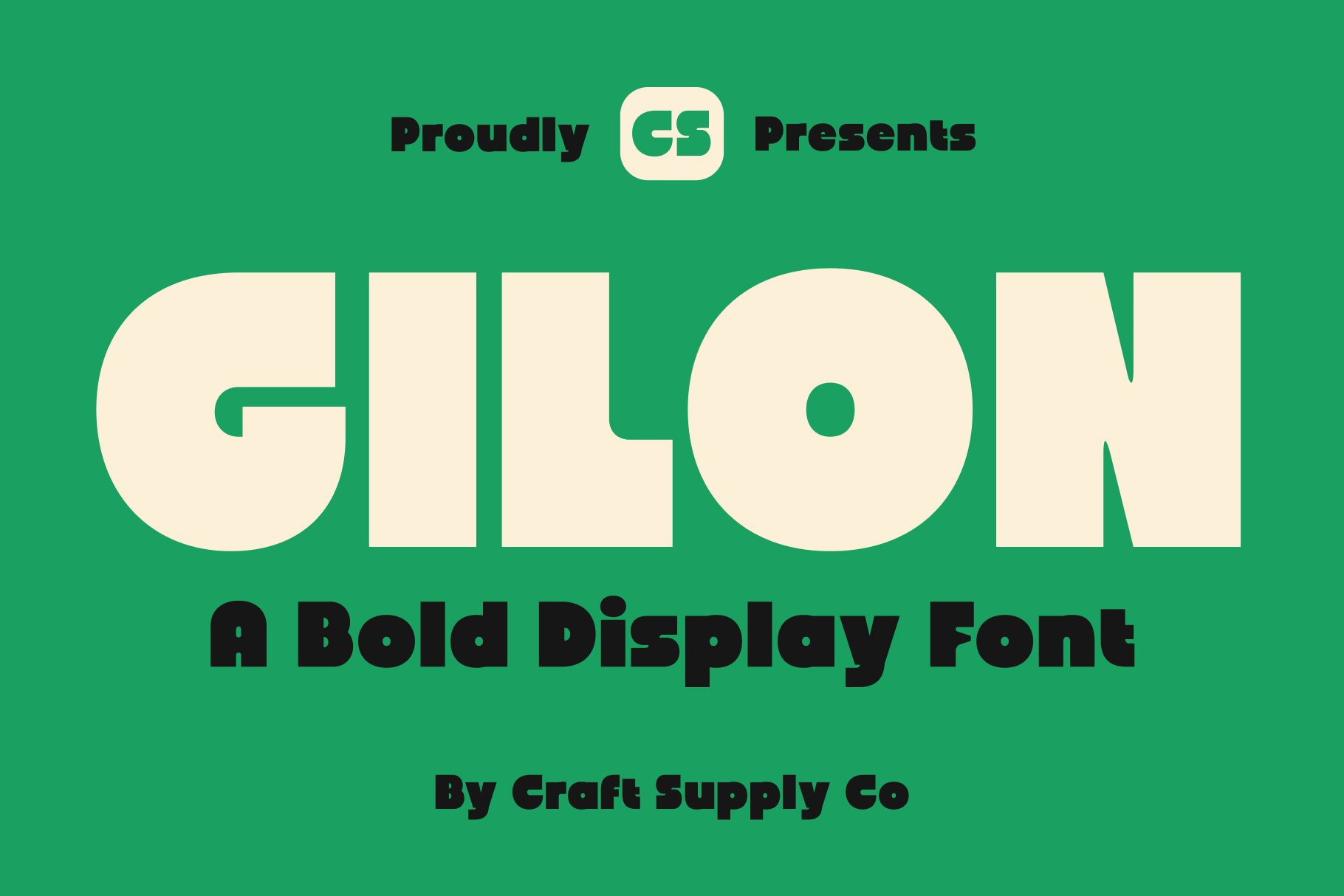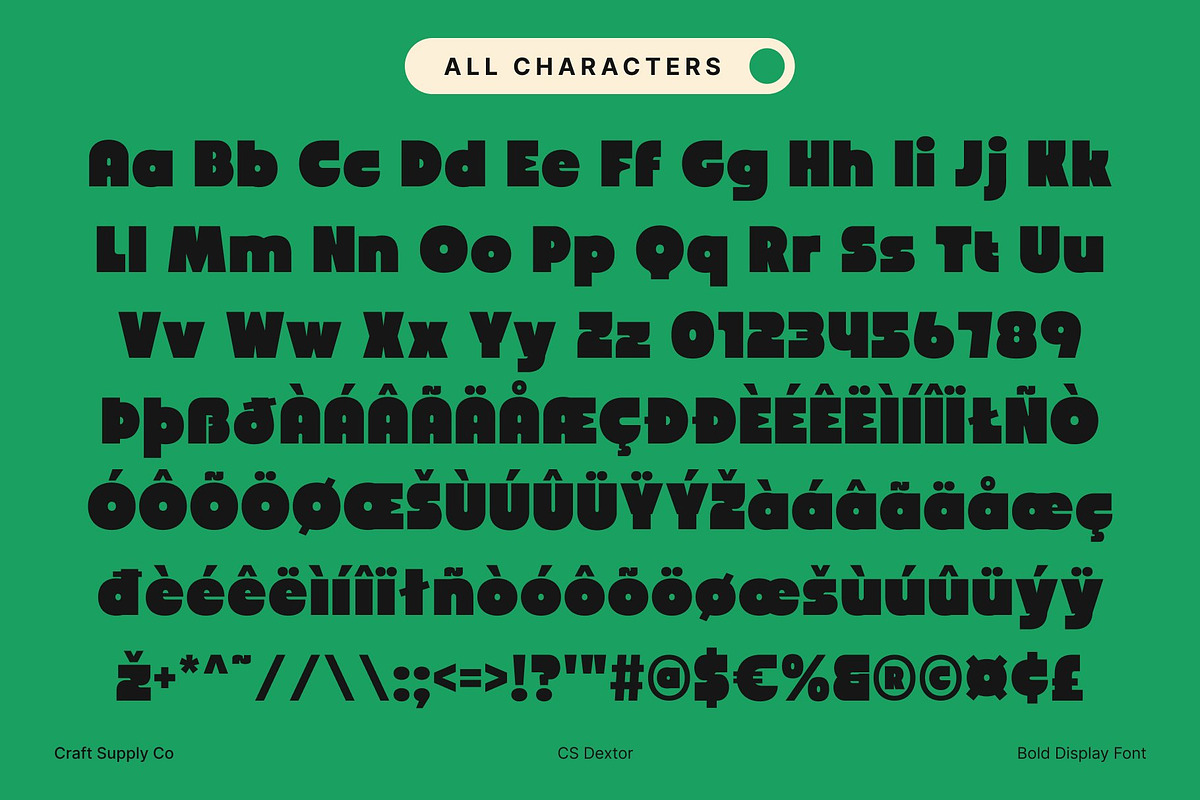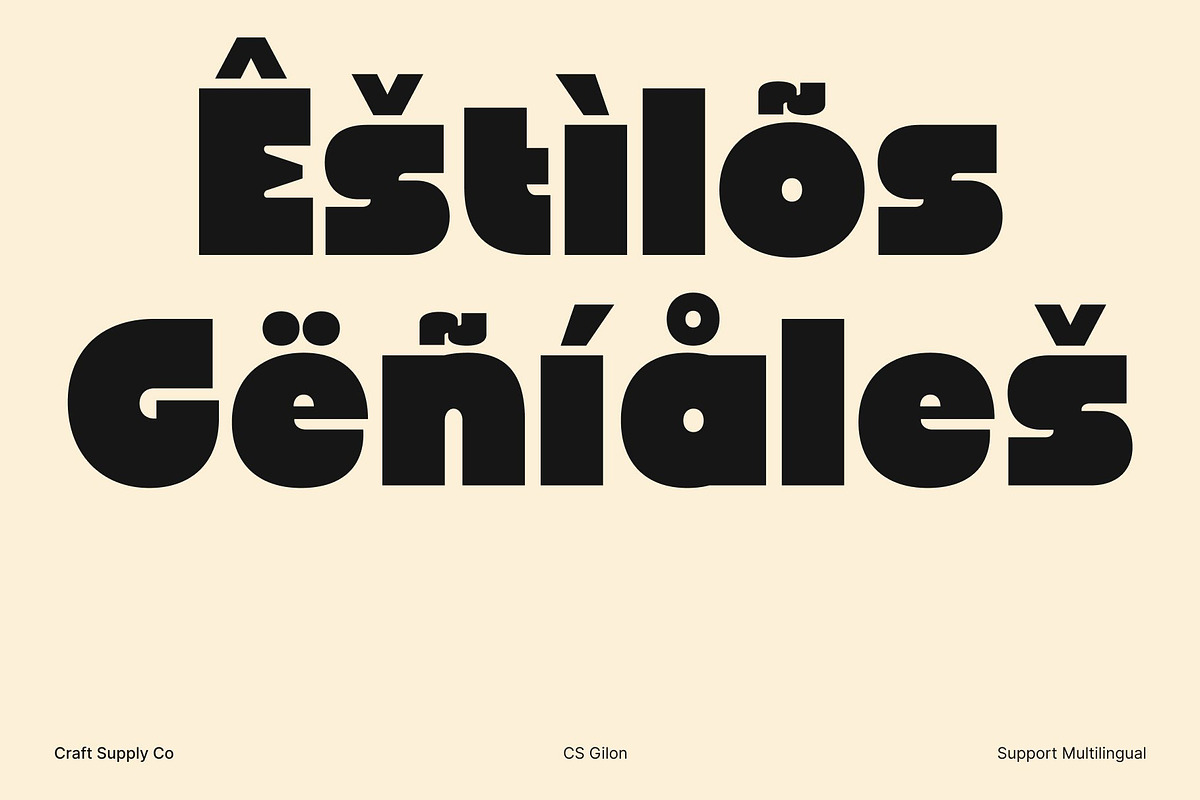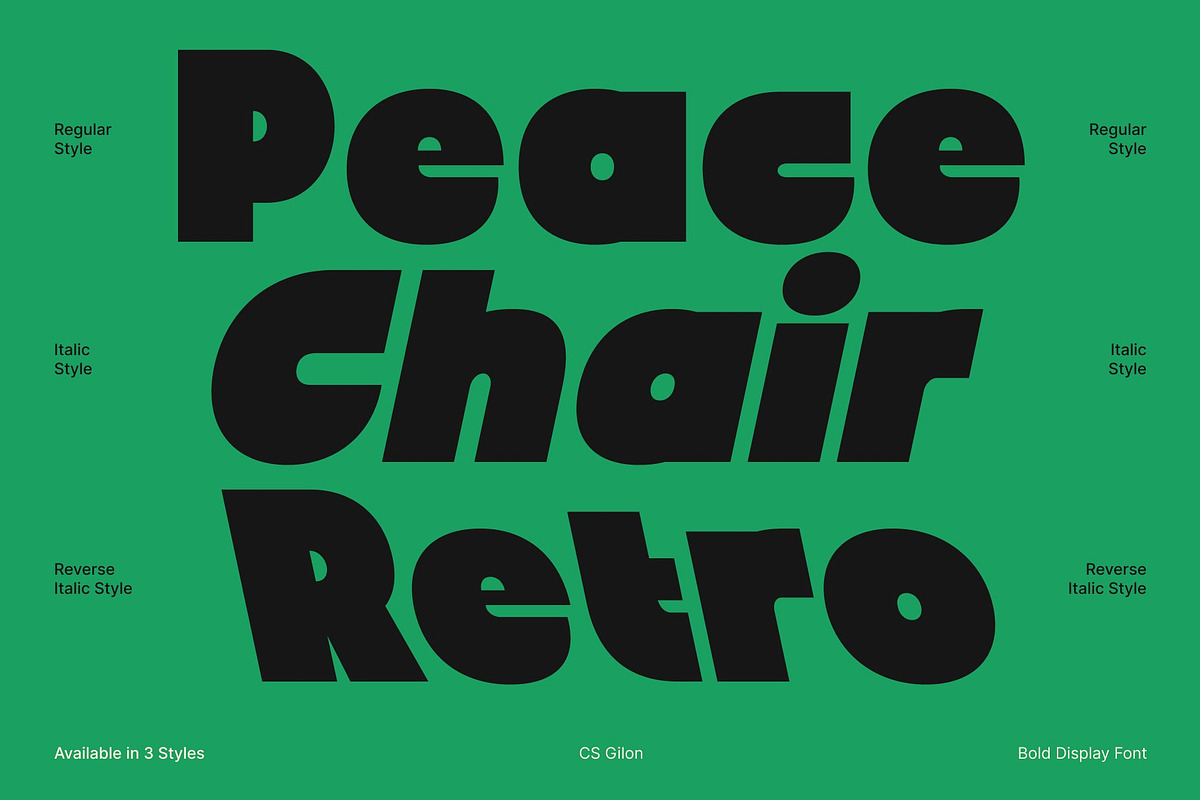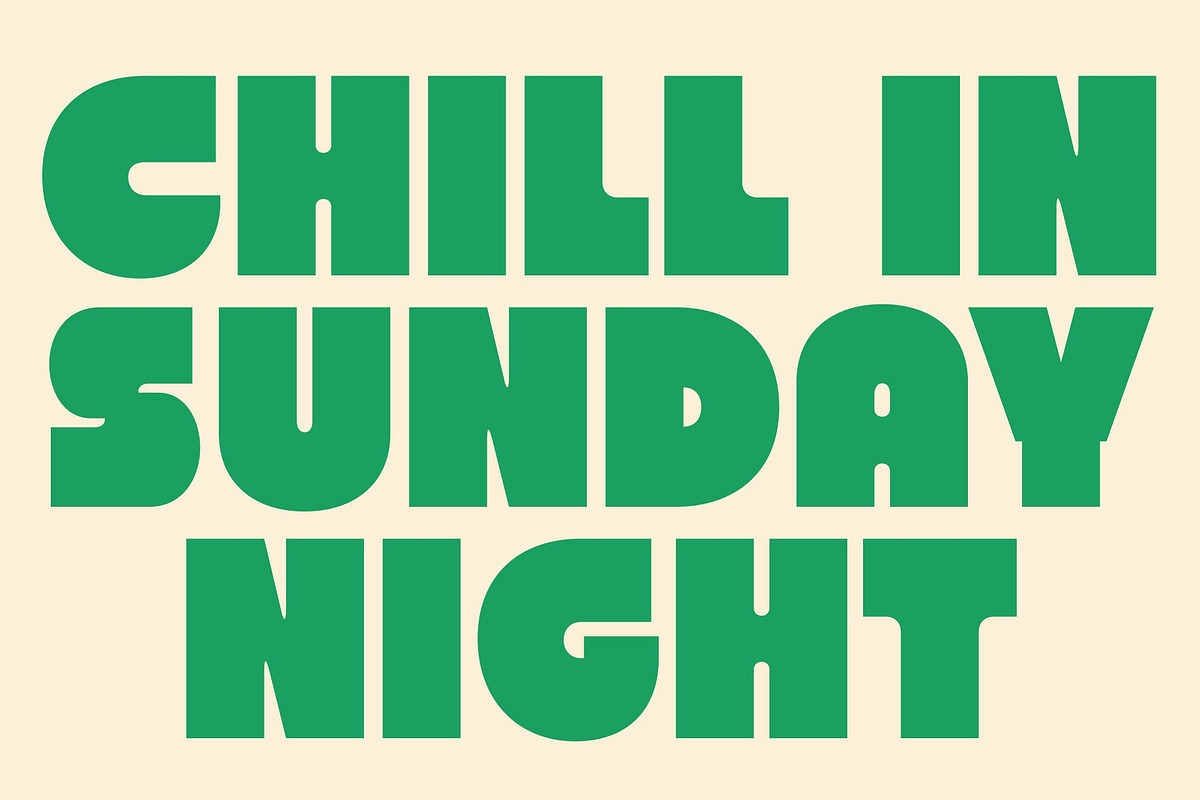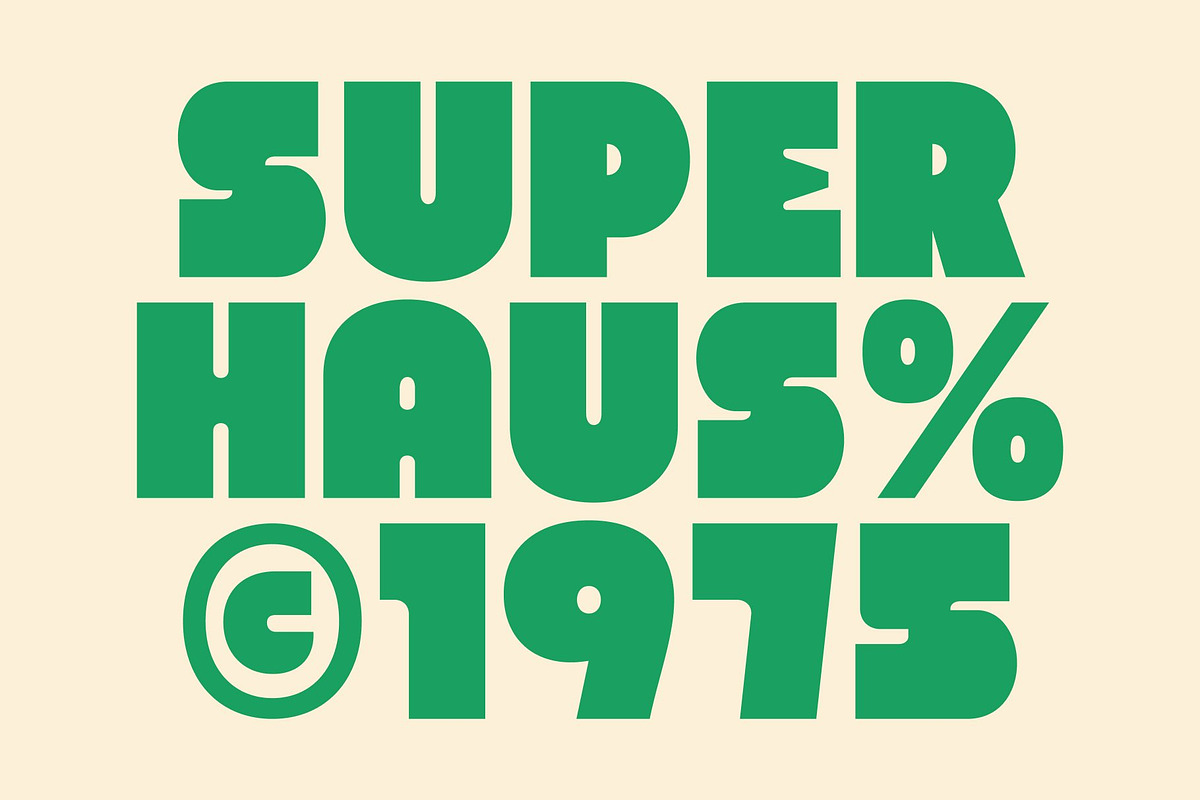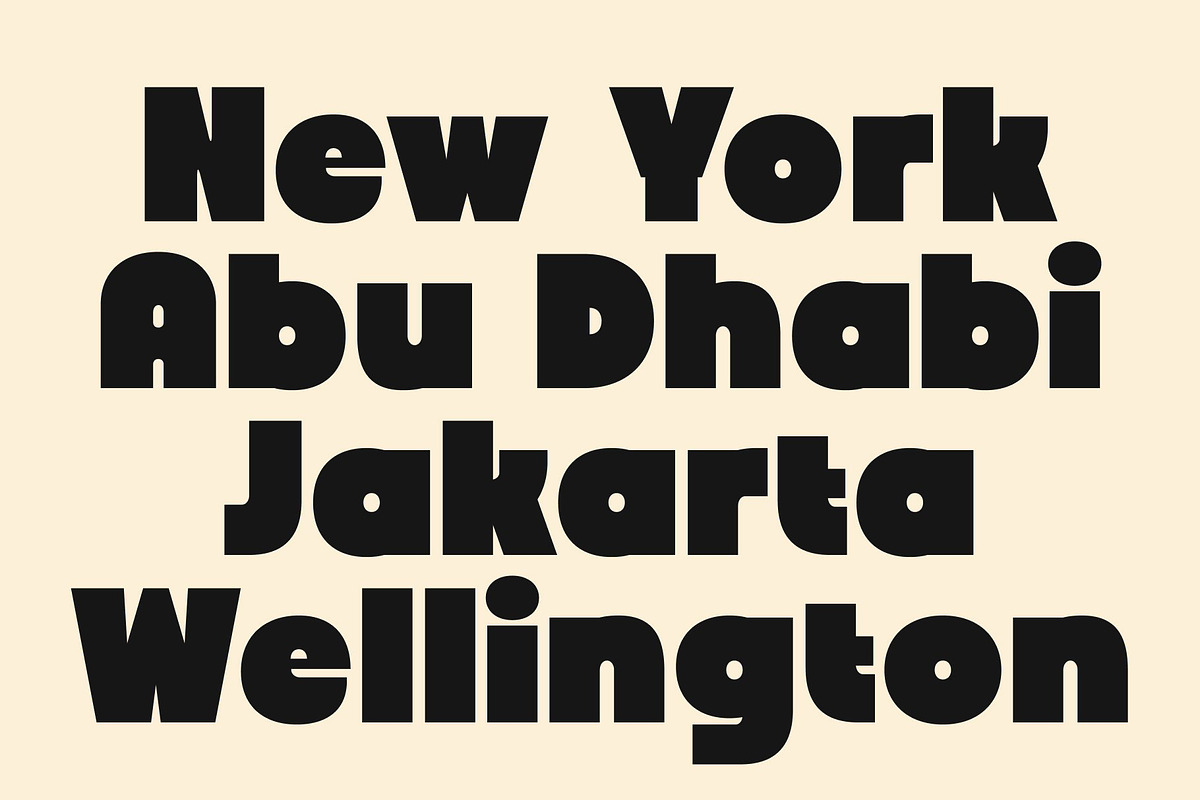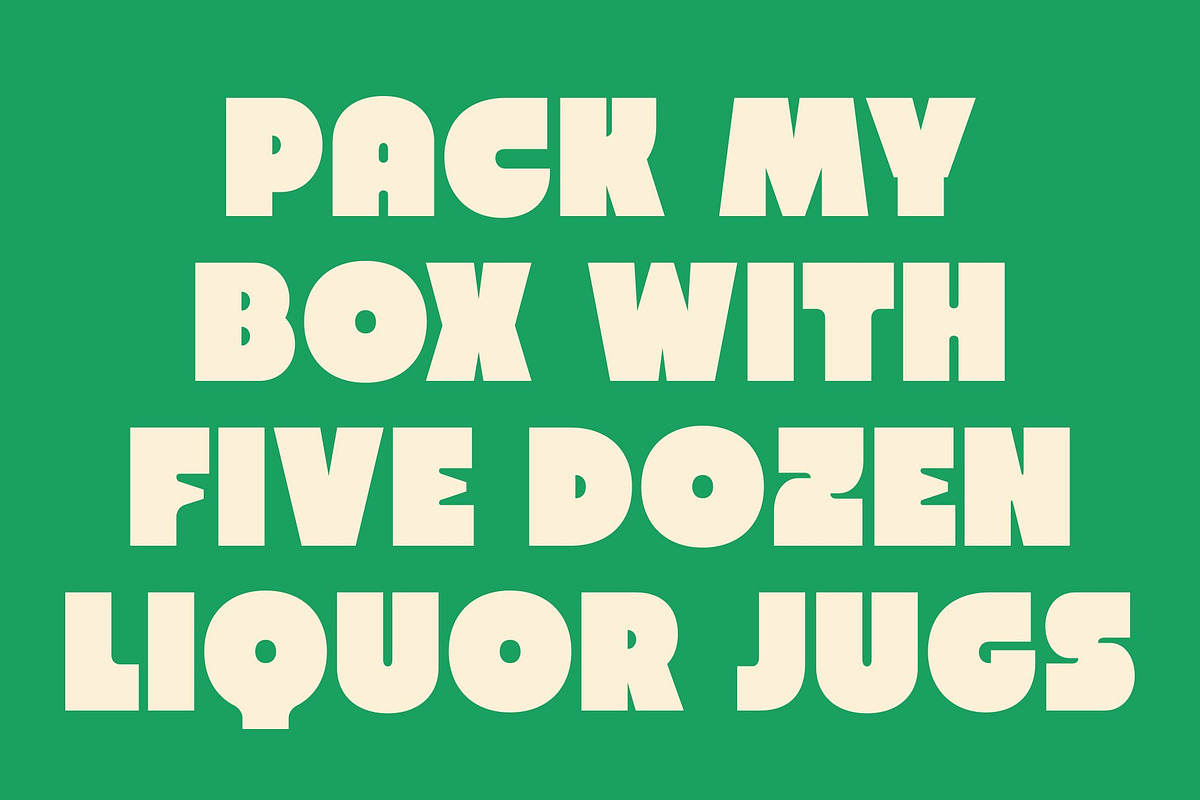
CS Gilon – Chunky Sans Font
CS Gilon – Chunky Sans Serif with Bold Geometric Impact Bold and Striking Letterforms This is a chunky sans serif font designed to capture attention with its thick, impactful shapes. Its geometric construction gives it a modern and structured feel, while playful curves add a fun and approachable personality. This combination makes the font perfect for projects that need to stand out instantly. Geometric Design with Fun and Friendly Appeal The font’s bold, well-proportioned letterforms balance strength and charm. Its geometric forms provide visual stability, while subtle curves and rounded edges introduce a friendly, fun aesthetic. this font is ideal for designs that want to communicate both confidence and approachability. Strong Presence for Headlines and Posters With its thick, attention-grabbing strokes, this font is perfect for display uses such as posters, headlines, or any design that demands visual impact. The font’s chunky structure ensures that it remains legible and expressive even at large scales, making your messaging impossible to ignore. Perfect for Branding, Display, and Creative Projects This font excels across a wide range of applications, from playful branding and editorial headlines to posters and signage. Its bold weight, geometric precision, and fun personality make it an excellent choice for projects that require a strong, memorable typographic statement. * Download Type Speciment: * --- What you get : - CS Gilon Regular - CS Gilon Italic - CS Gilon Reverse Italic Features : - Uppercase and lowercase characters - Numerals and Punctuation (OpenType Standard) - Accents (Supports Multilingual Characters) - PUA Encoding --- You can use this typeface without needing any specialized software.* --- If you have any inquiries or need assistance, please feel free to contact us. We appreciate your support in enhancing your creative projects! Best regards, Craft Supply Co.